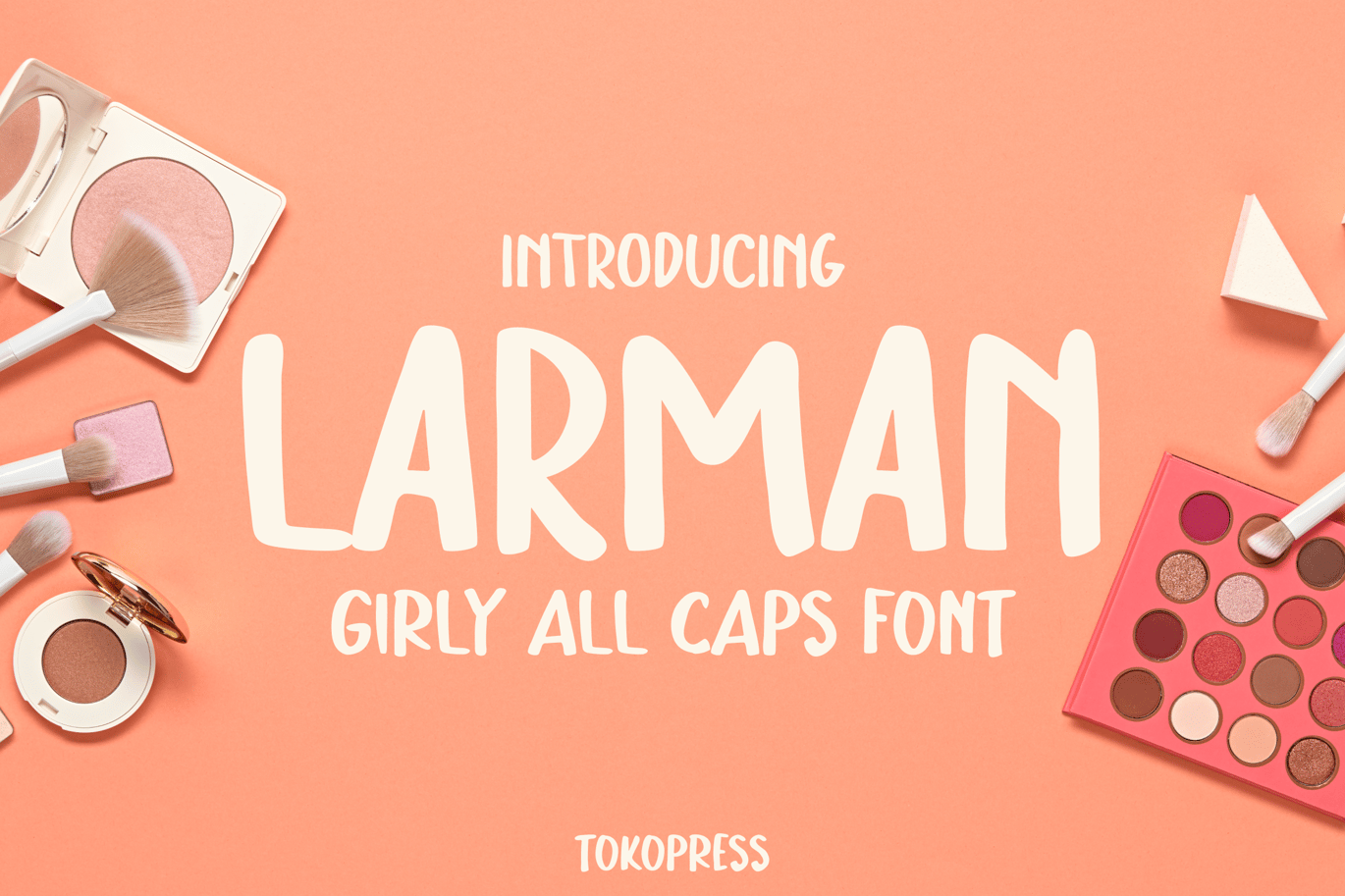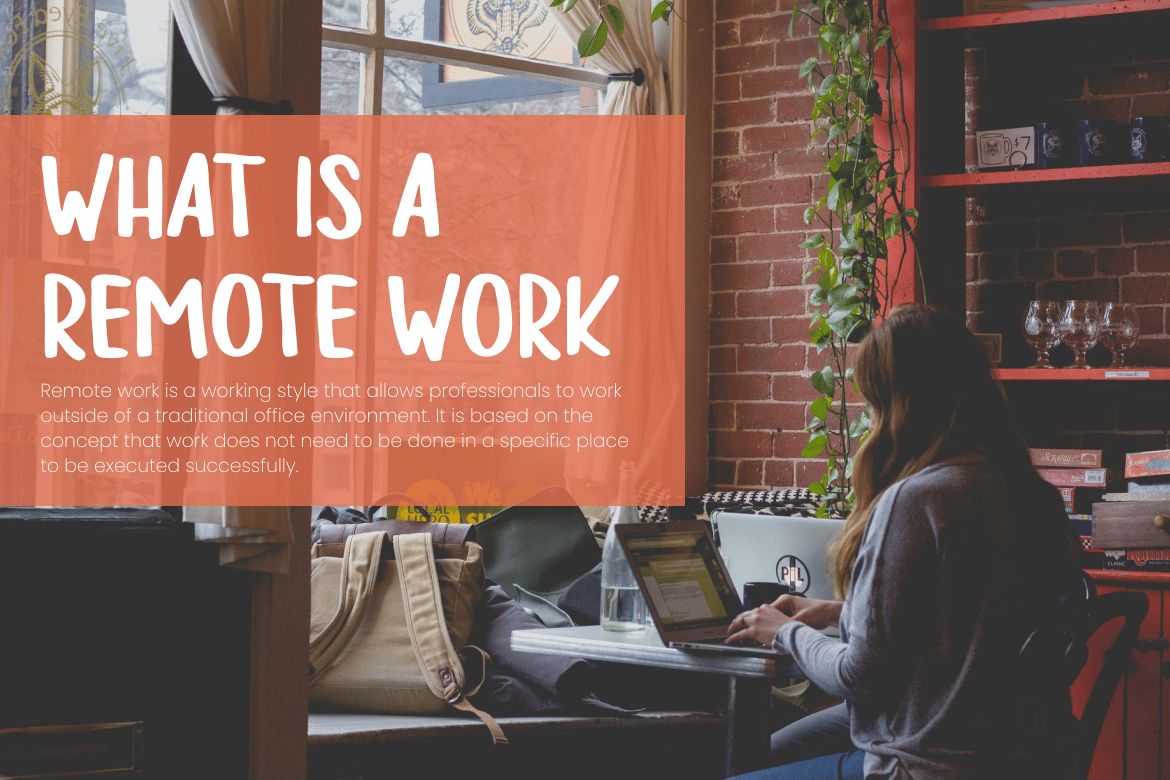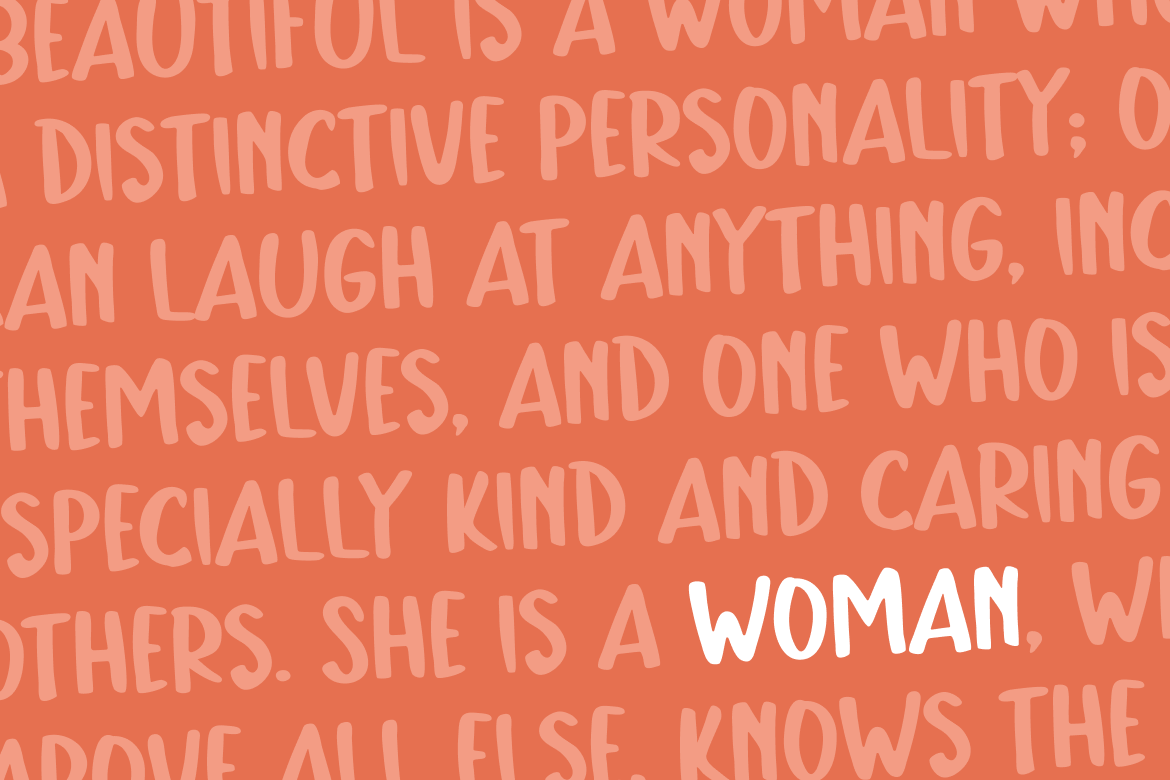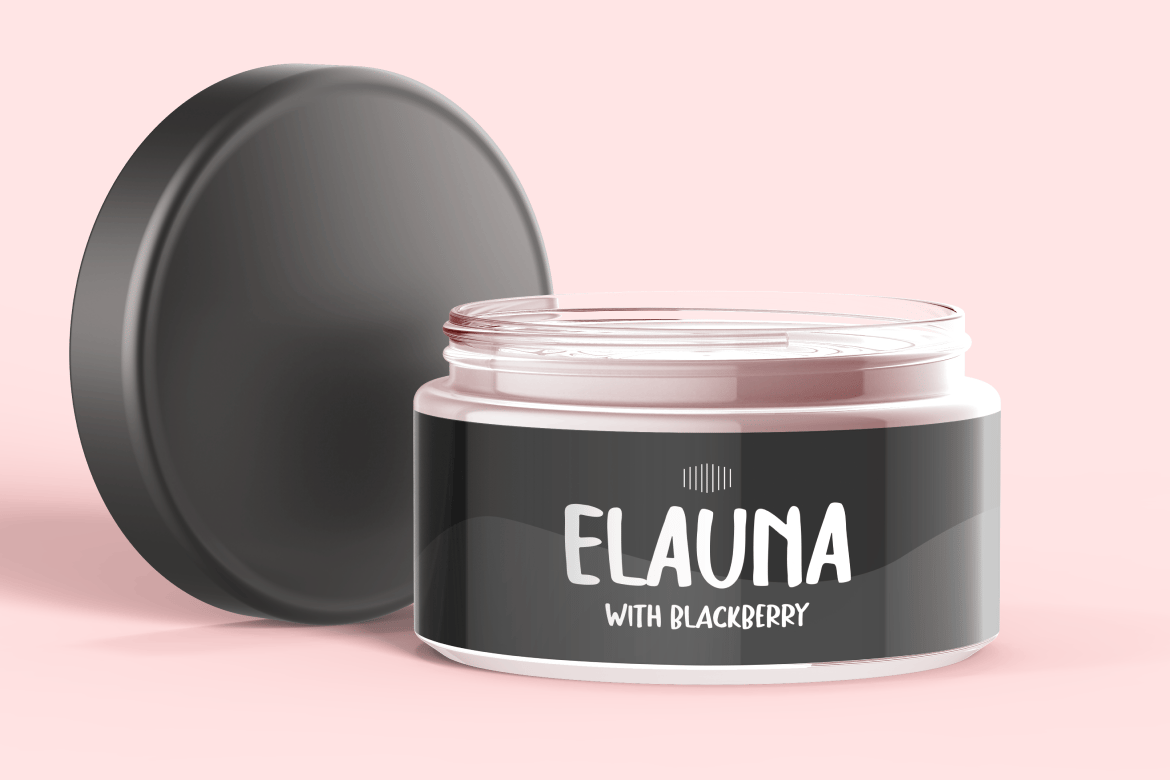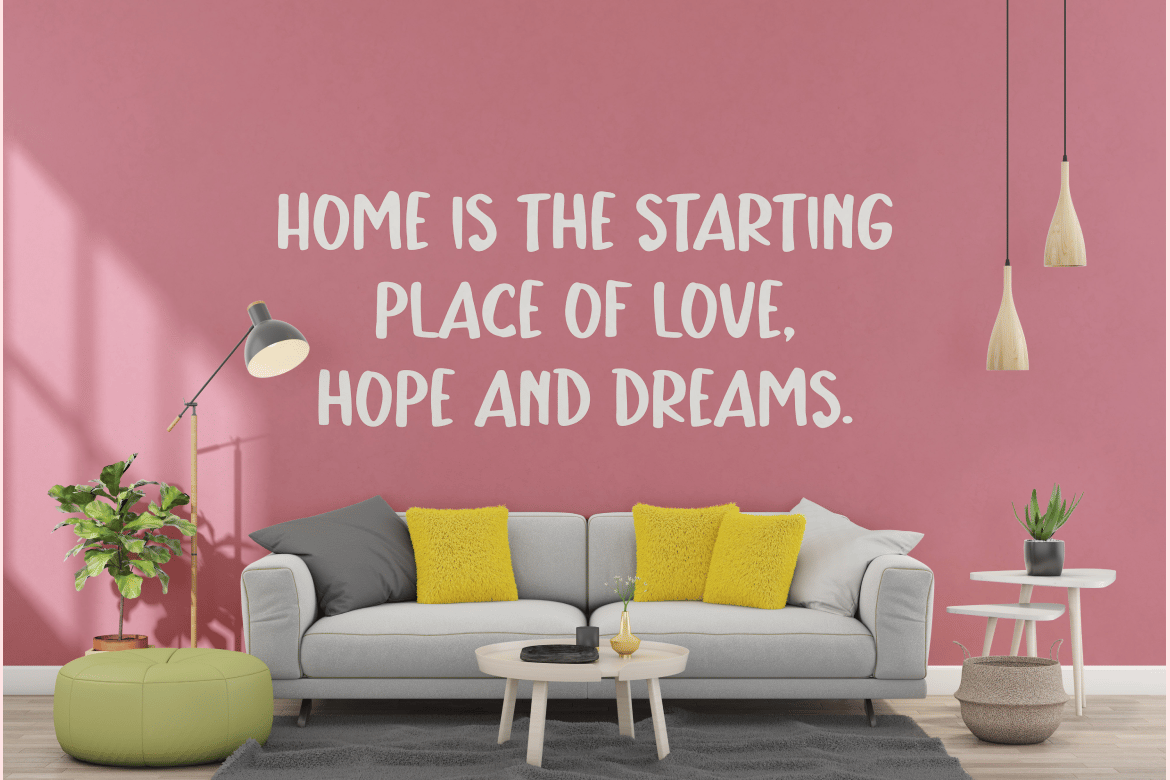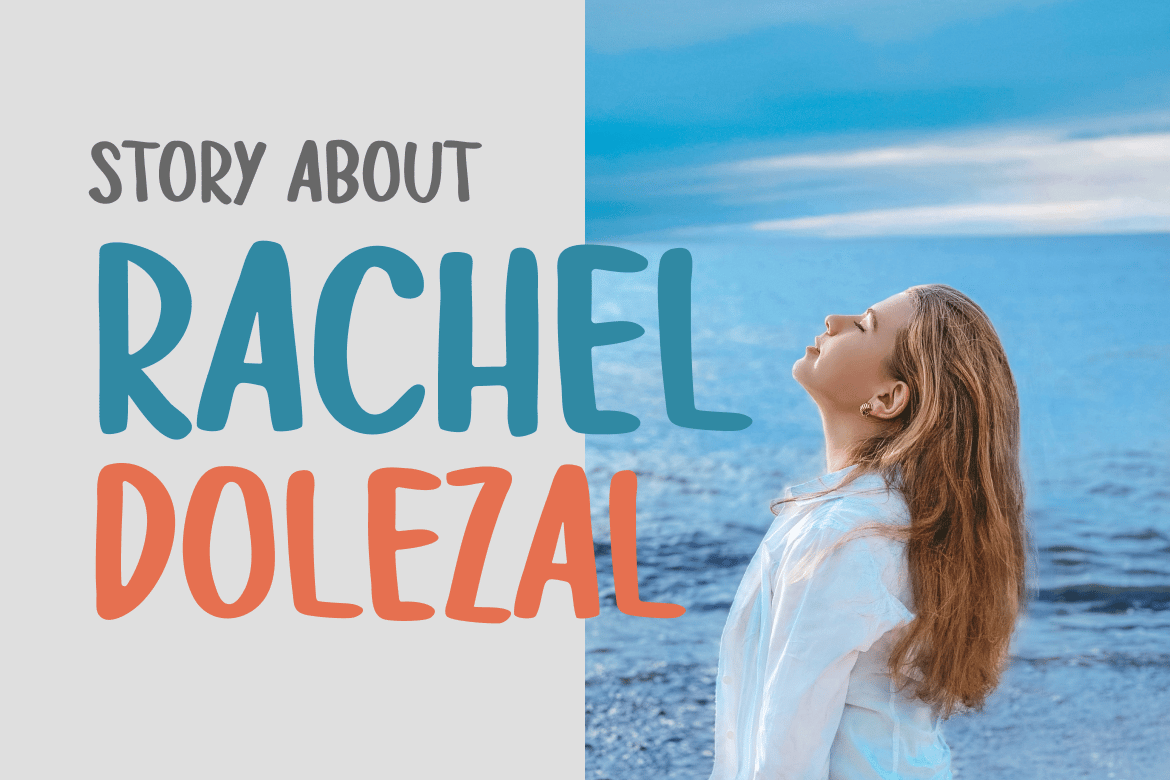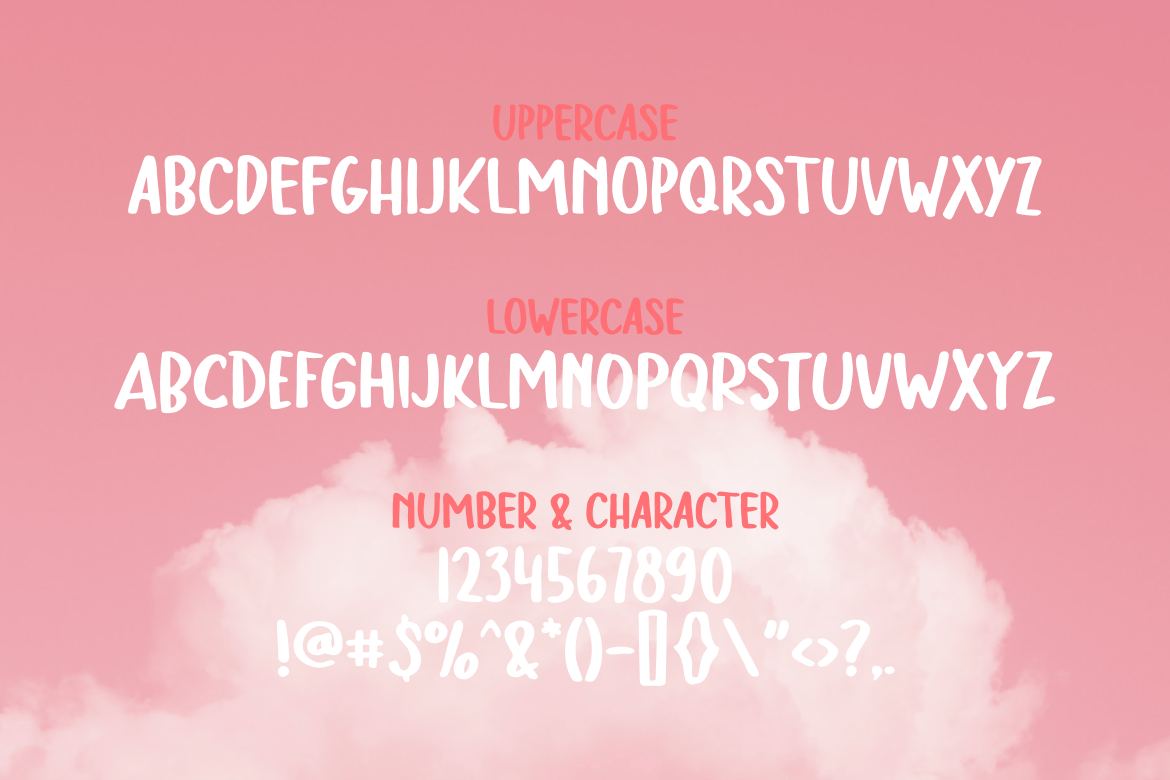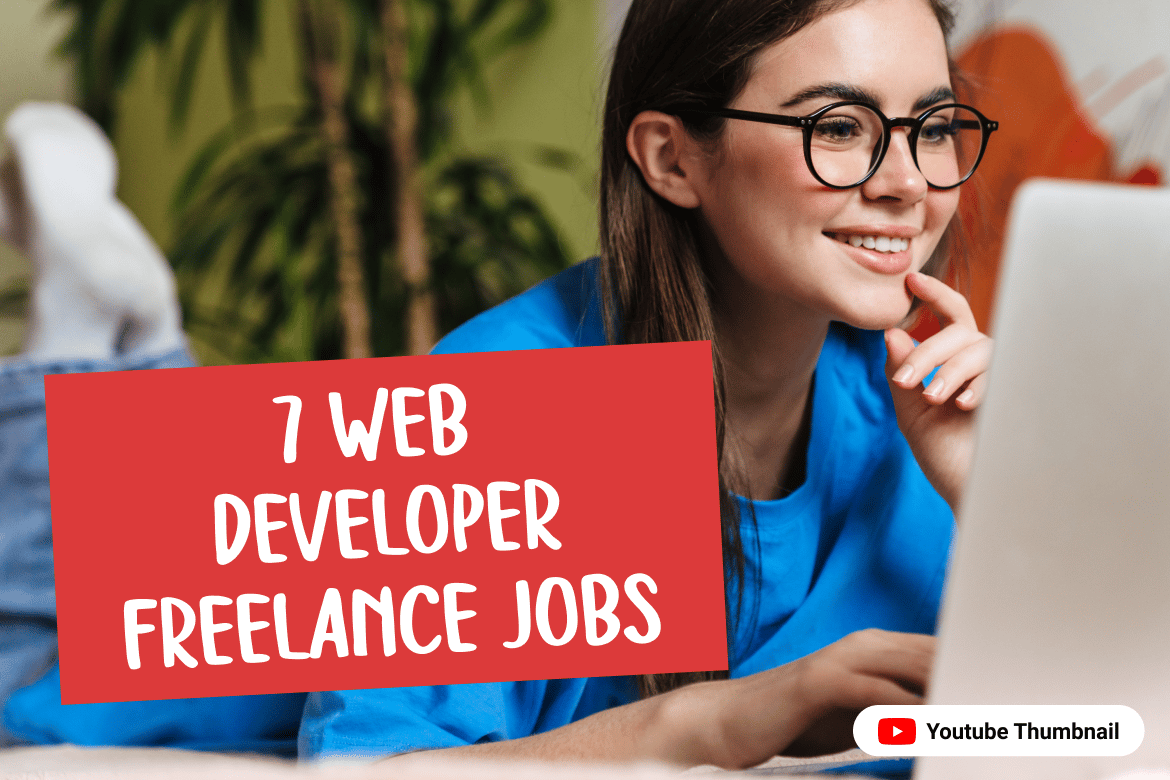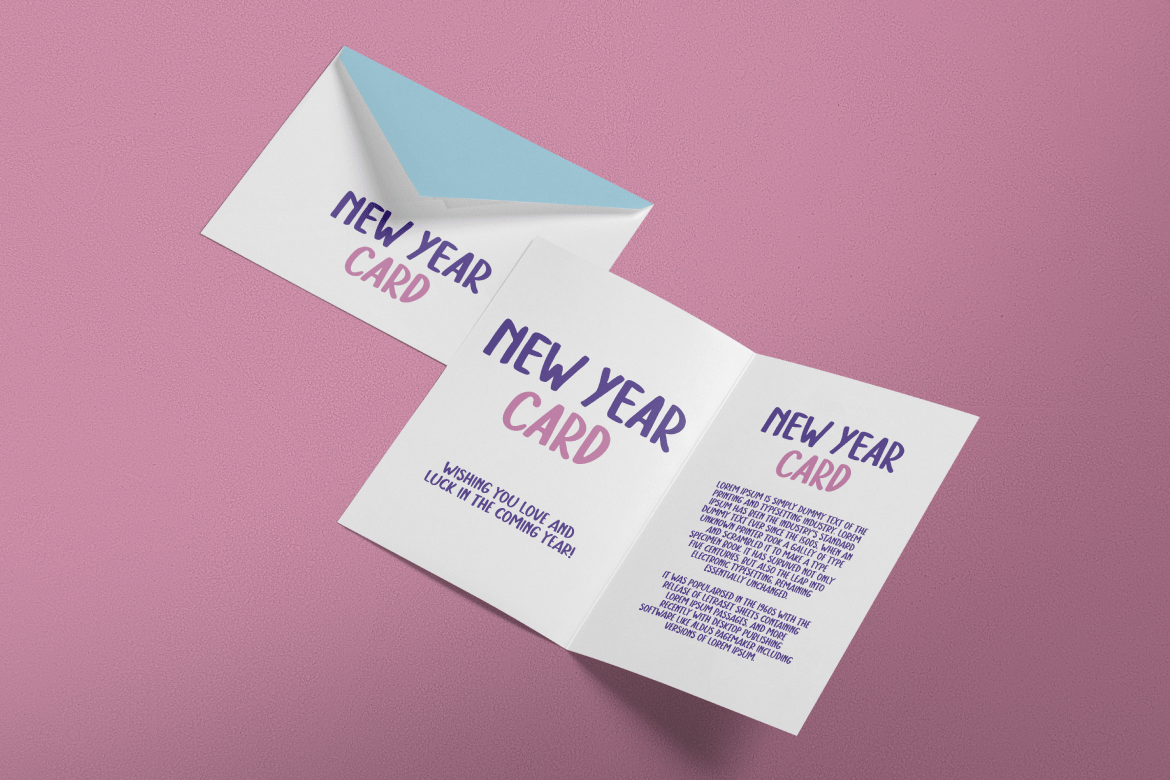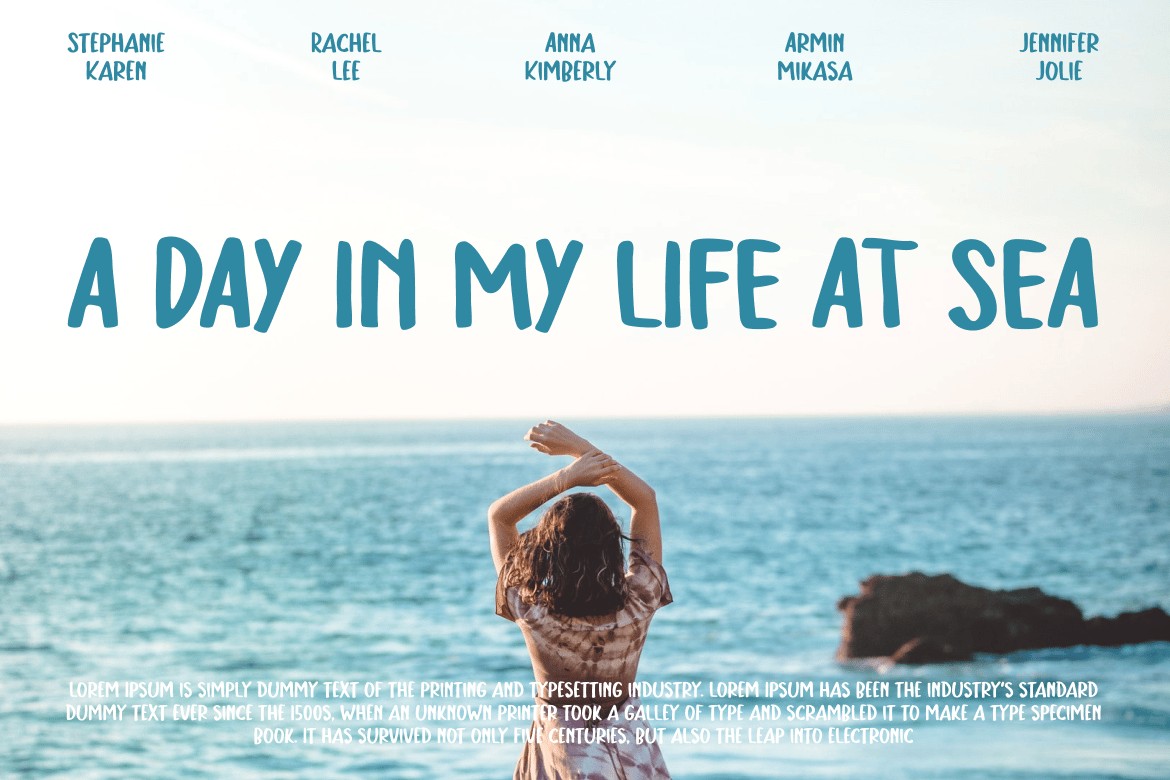
Larman – girly font
It’s all fun and happy vibe with LARMAN being use in your project. Cute and still have clear read-ability in their shape.
Suit perfectly for Girly teen market audiences, poster, movie title, chic restaurant/ cafe menu, magazine, youtube covers, youtube thumbnails, social media page covers and so on…